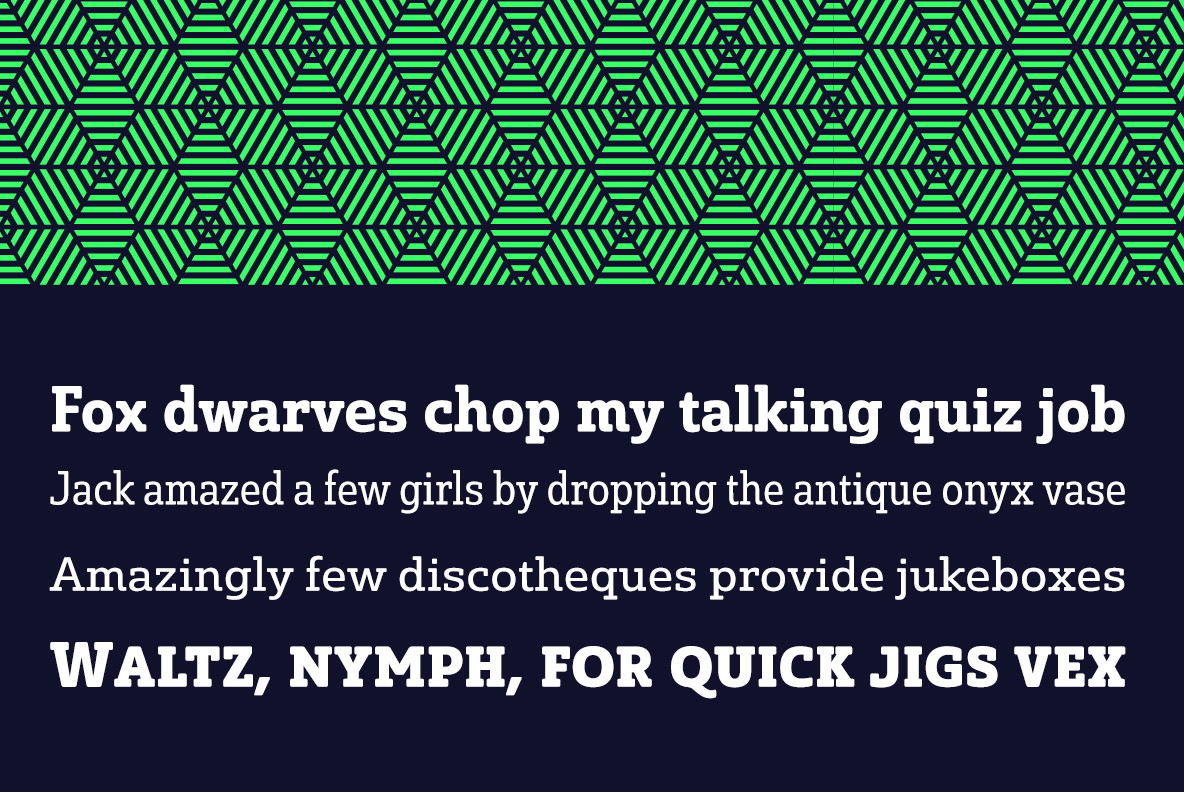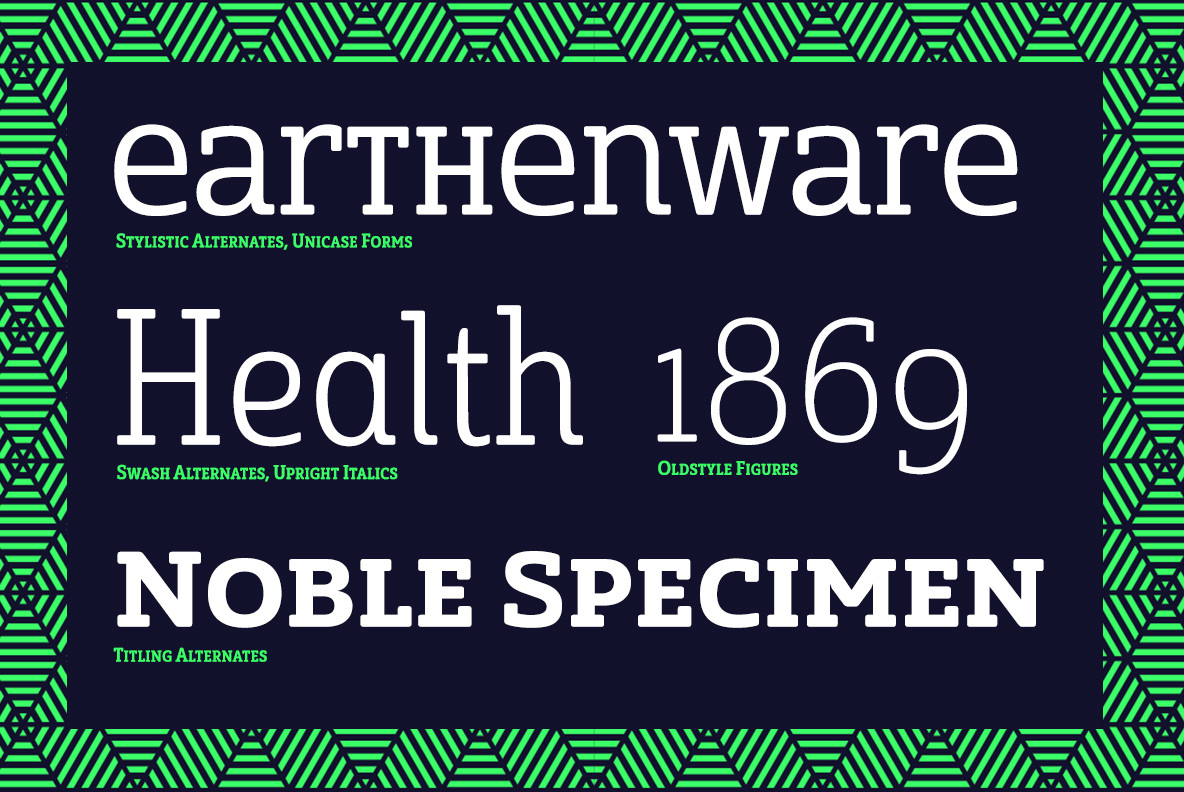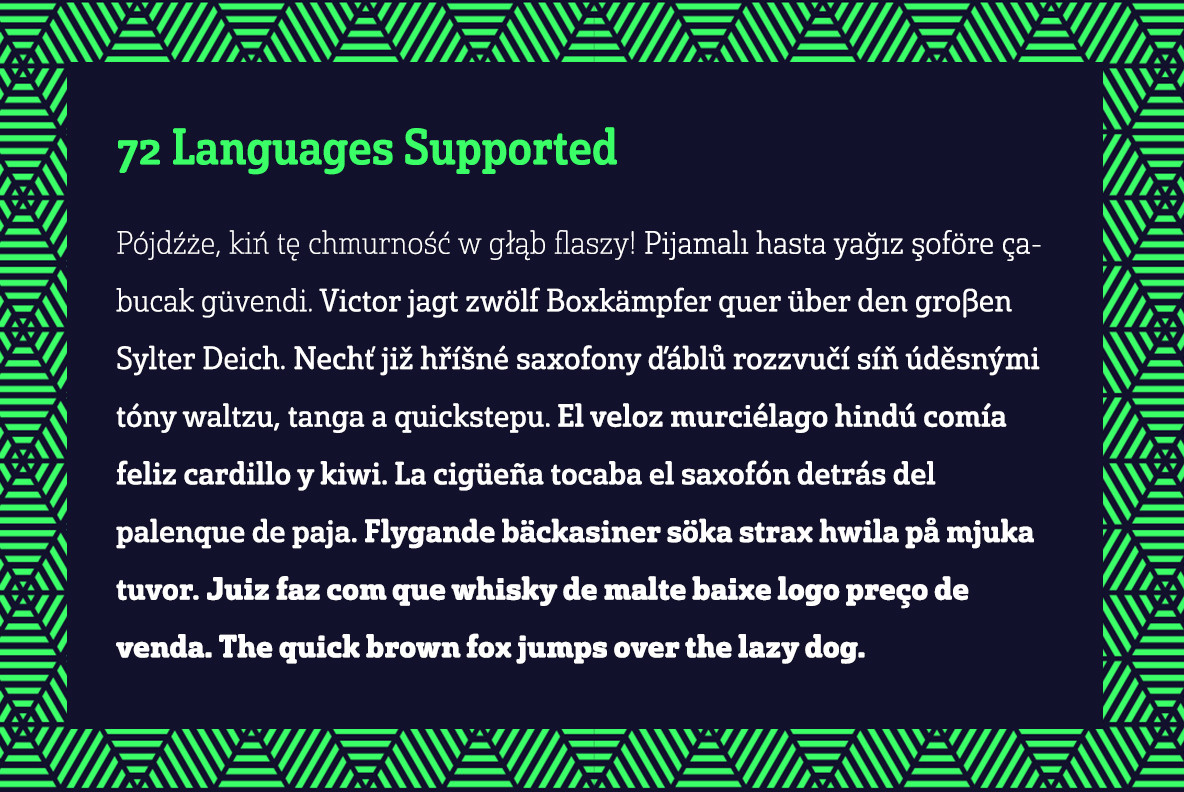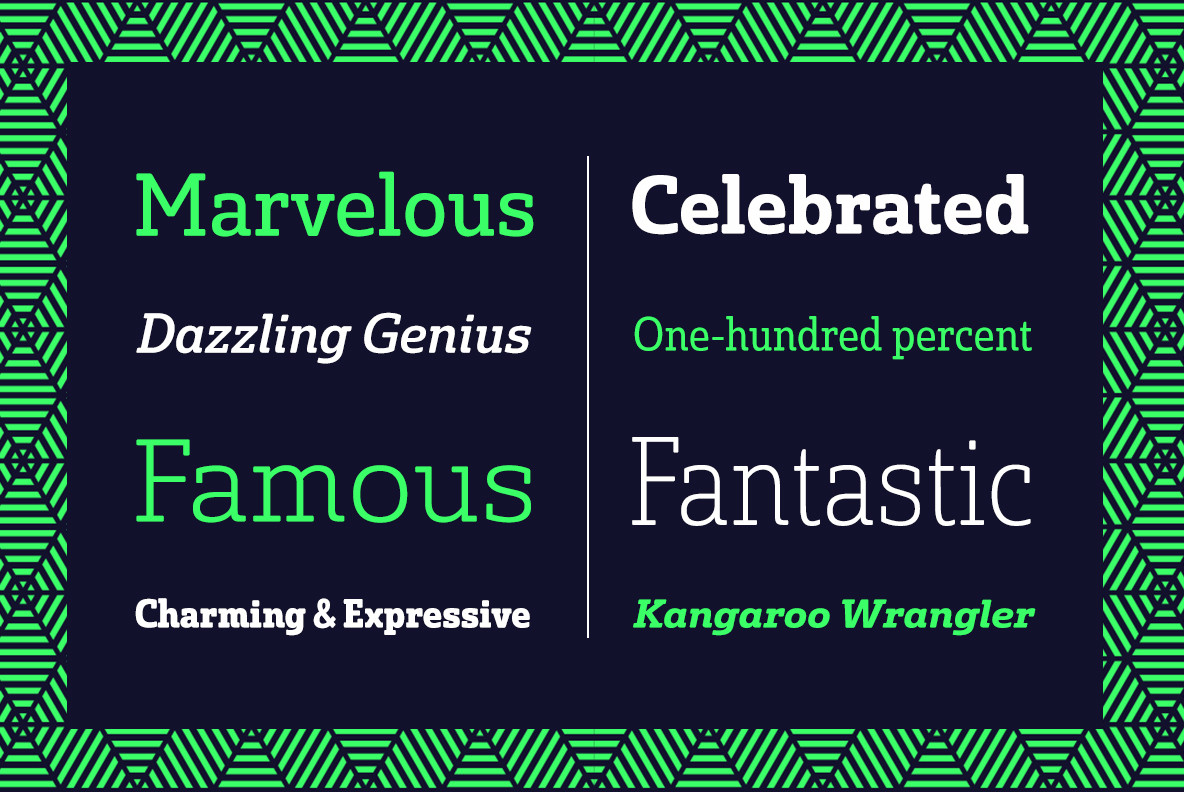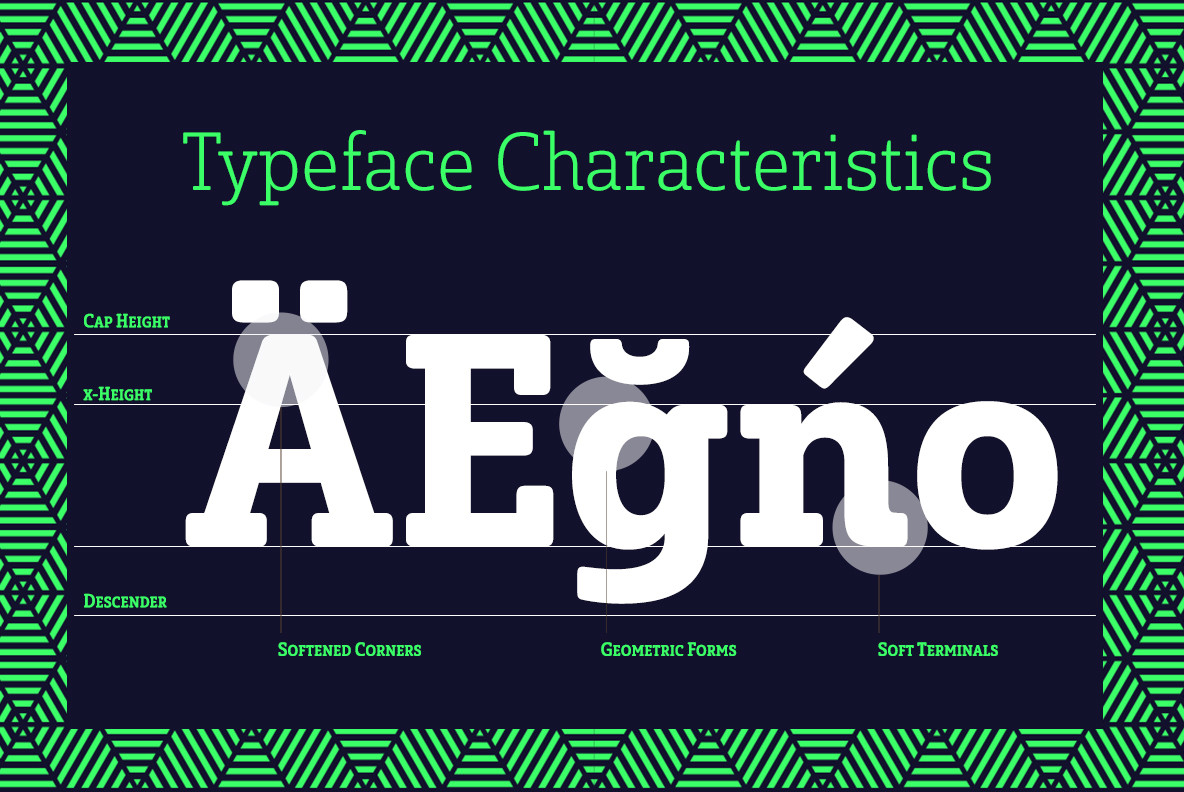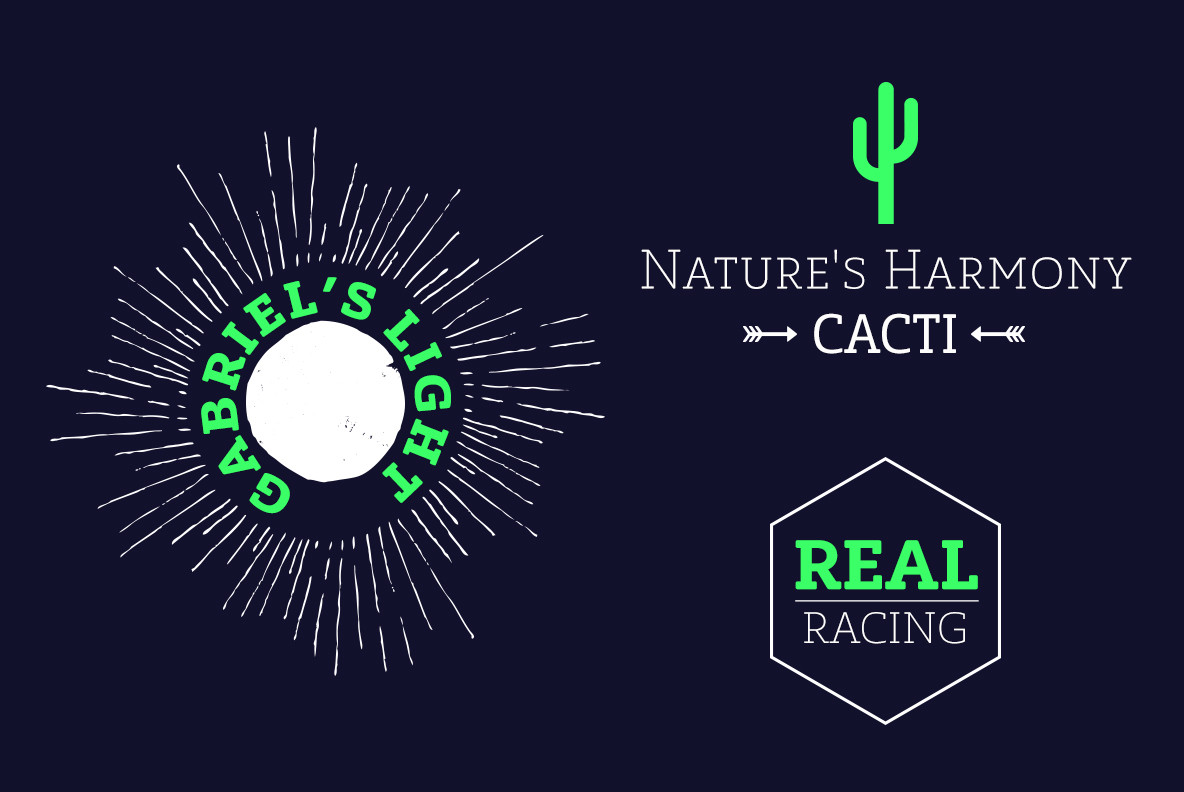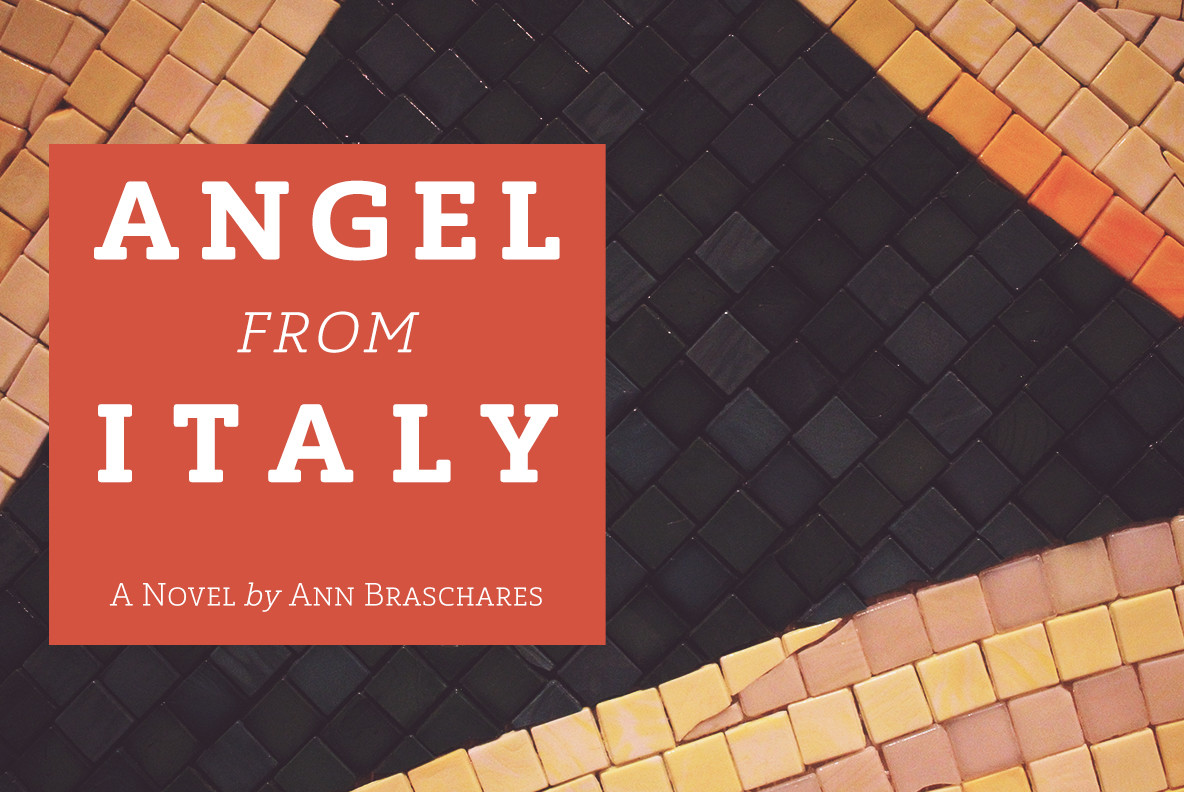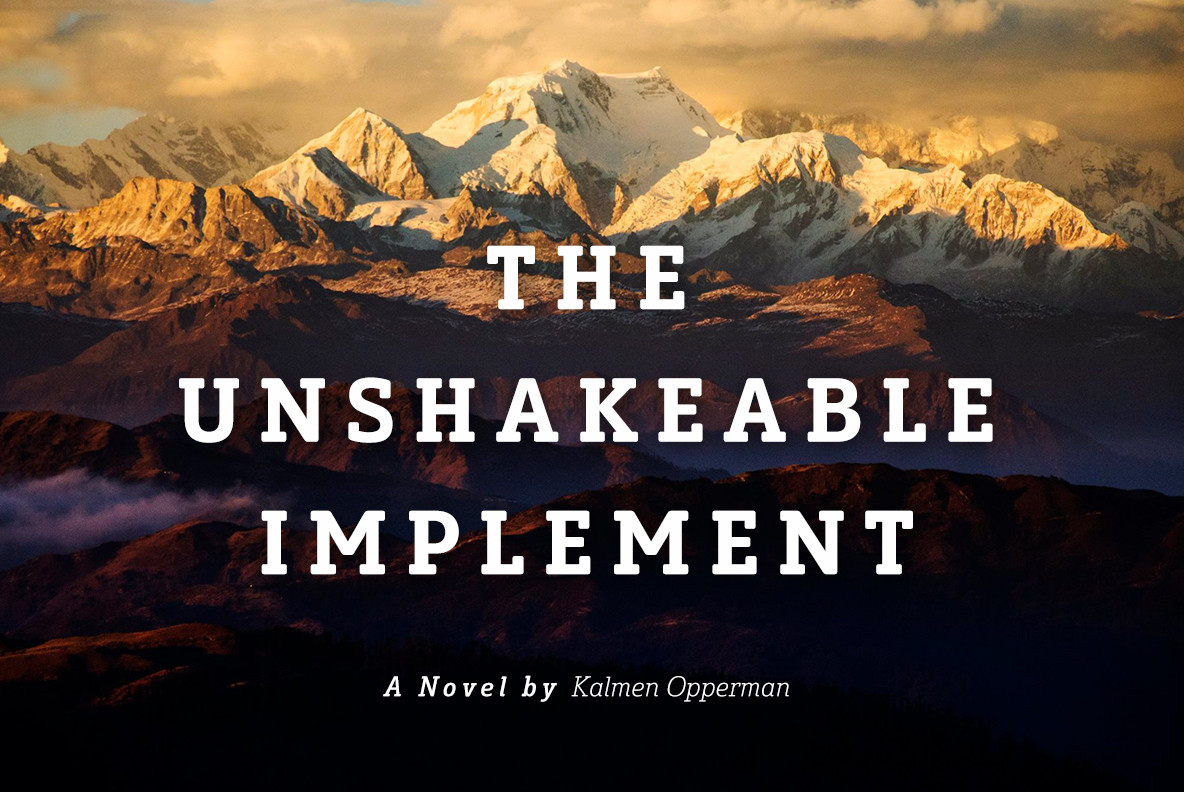
Solitas Slab Font
Slab serif, meet the curves of Solitas. The new slab sister of Insigne’s successful Solitas family will turn your head with its soft, but distinct look. Solitas Slab defies the typical feel of the robust slab category with her more compact structure and rounded corners to create a confident charm that complements everything sweet from cookies and puppies to whiskers on kittens.
Solitas Slab OpenType options include titling caps, small capitals, ligatures, ordinal characters, fractions, numerator and denominator as well as superscript and subscript. Solitas Slab also supports Western European, Central and Eastern European languages.
Enjoy the softer side of Solitas Slab today for your packaging, web, or print. You’ll soon find this friendly font to be one of your favorite things.